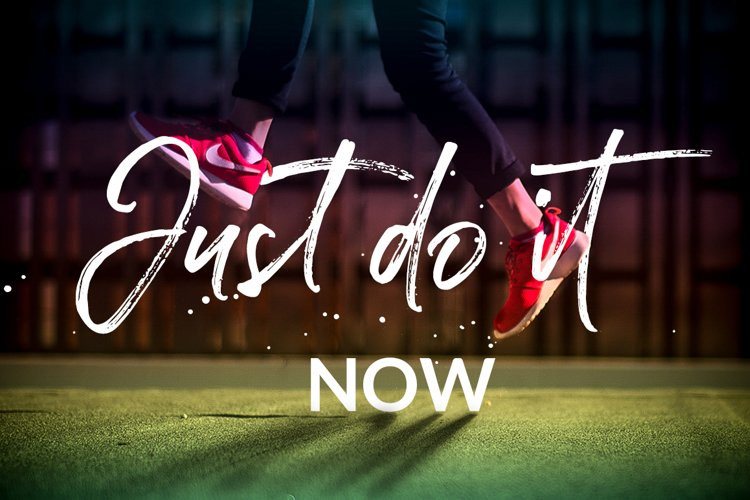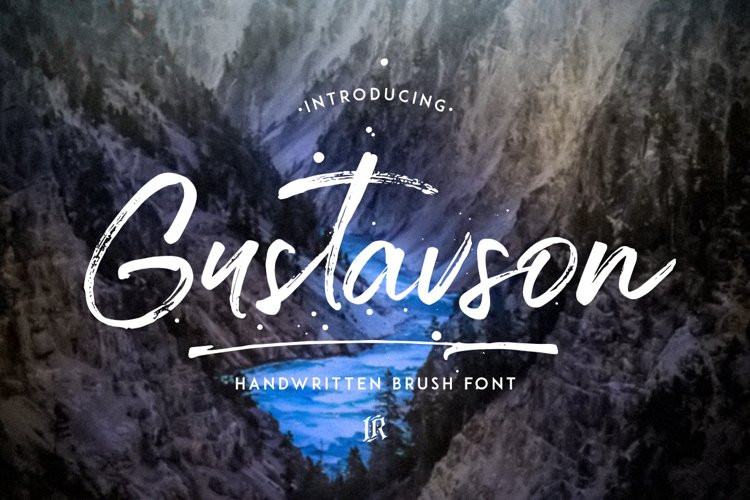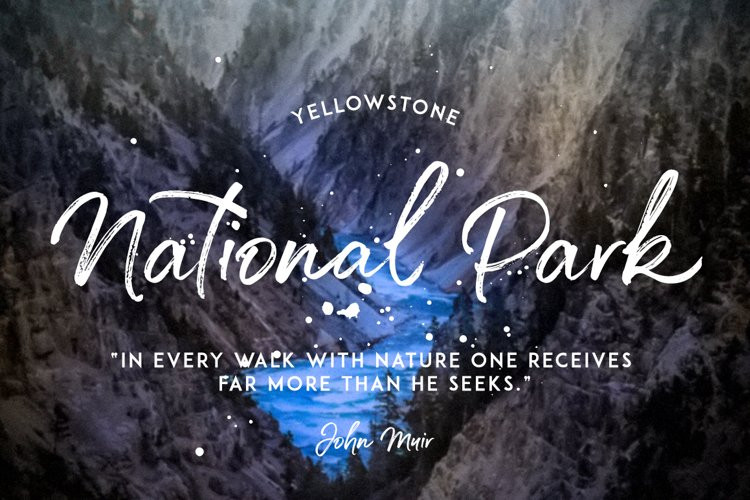
Gustavson Font
Gustavson Font is hand brushed font with multilingual support. Is ideal for t-shirts, magazines, phone covers, social media, restaurant menus, greeting cards, invitations, weddings, headers and many more.This brush font comes with a complete set of lowercase and uppercase characters, a large range of punctuation ligatures, numerals and and multilingual support.Download folder includes
Gustavson Font is a set of glyphs, Upper and Lowercase with ligatures, numerals and lot of punctuation glyphs and 1-4 alternates for each character.
Gustavson Swashes – a set of 26 hand drawn swatches for text decoration
Gustavson Ink Splatters – 12 ink splatters in vector format